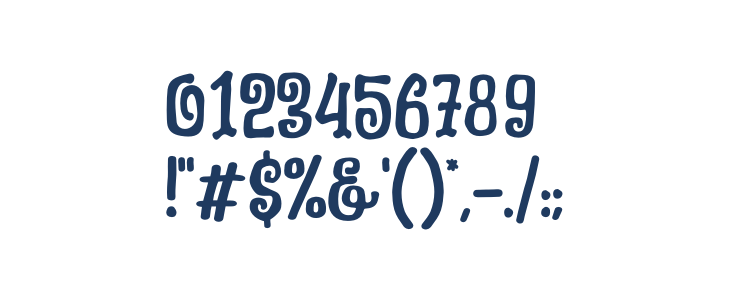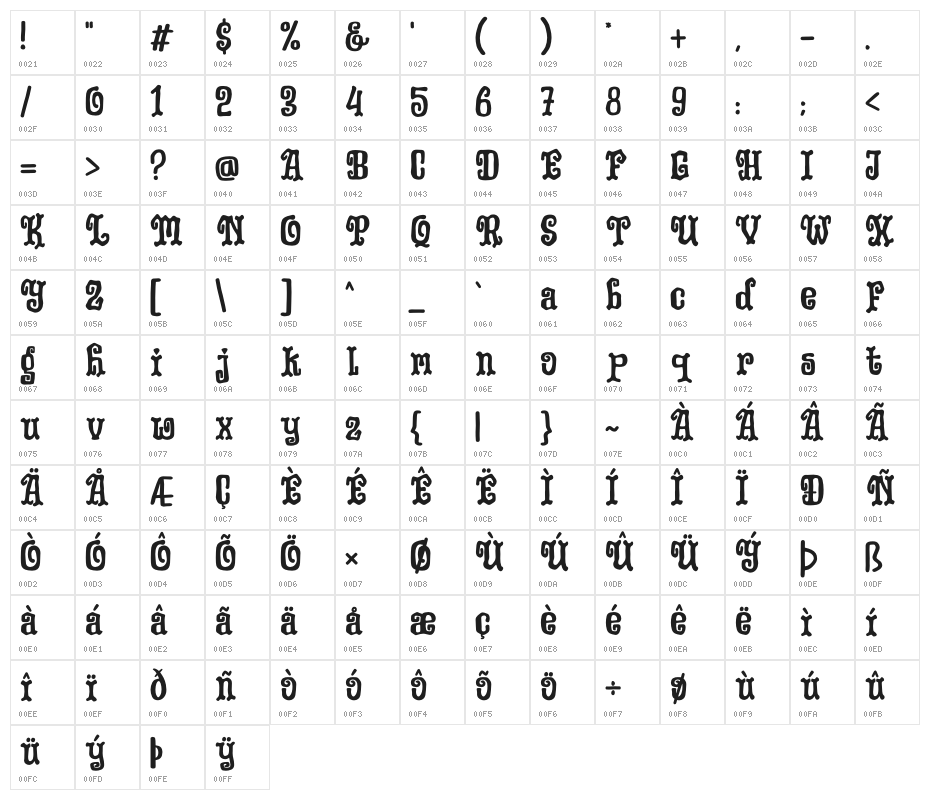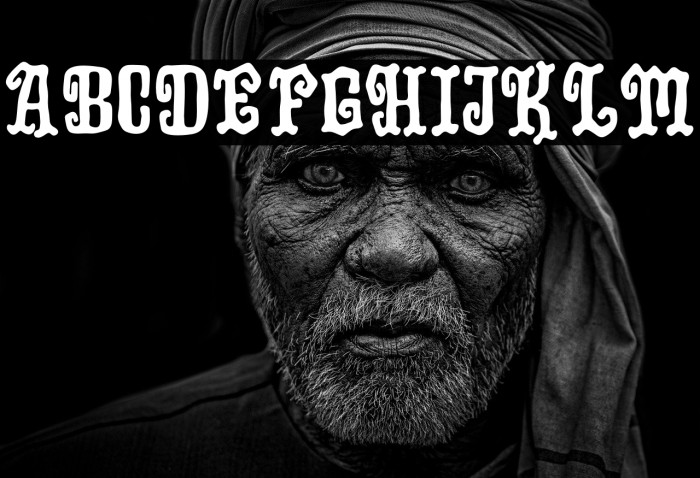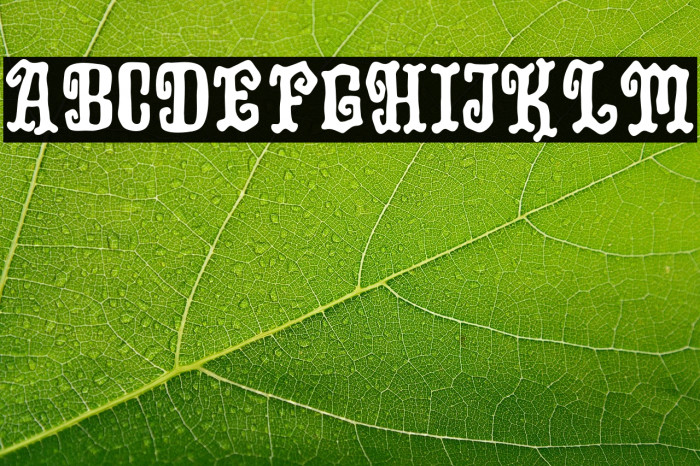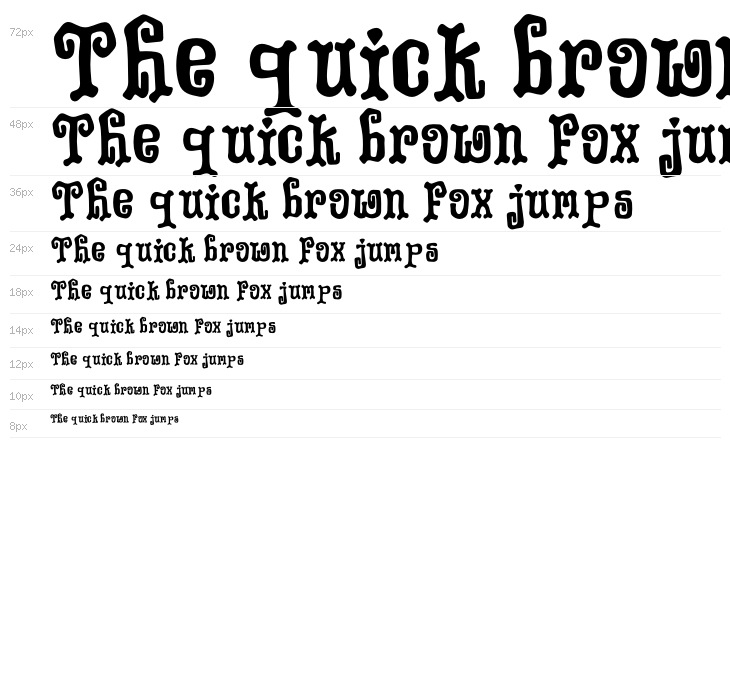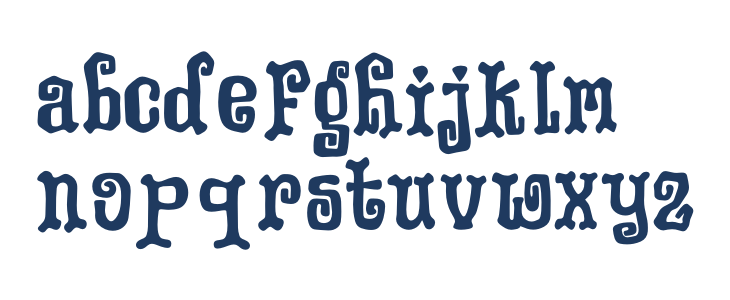
Midnight Story Font
Midnight Story Description
This font features a bold and playful design with a whimsical flair. The characters are uniquely crafted with exaggerated serifs and a slightly uneven baseline, giving it a hand-drawn, artistic feel. The uppercase and lowercase letters maintain a consistent style, with rounded edges and a sense of movement. Numbers and special characters are equally distinctive, adding to the font's overall charm. The design is reminiscent of vintage signage or storybook titles, making it ideal for creative projects that require a touch of nostalgia and fun.
| Overall Style | Vintage, Decorative |
| Proposed Projects | Ideal for children's book covers, playful branding, vintage posters, and creative invitations. |